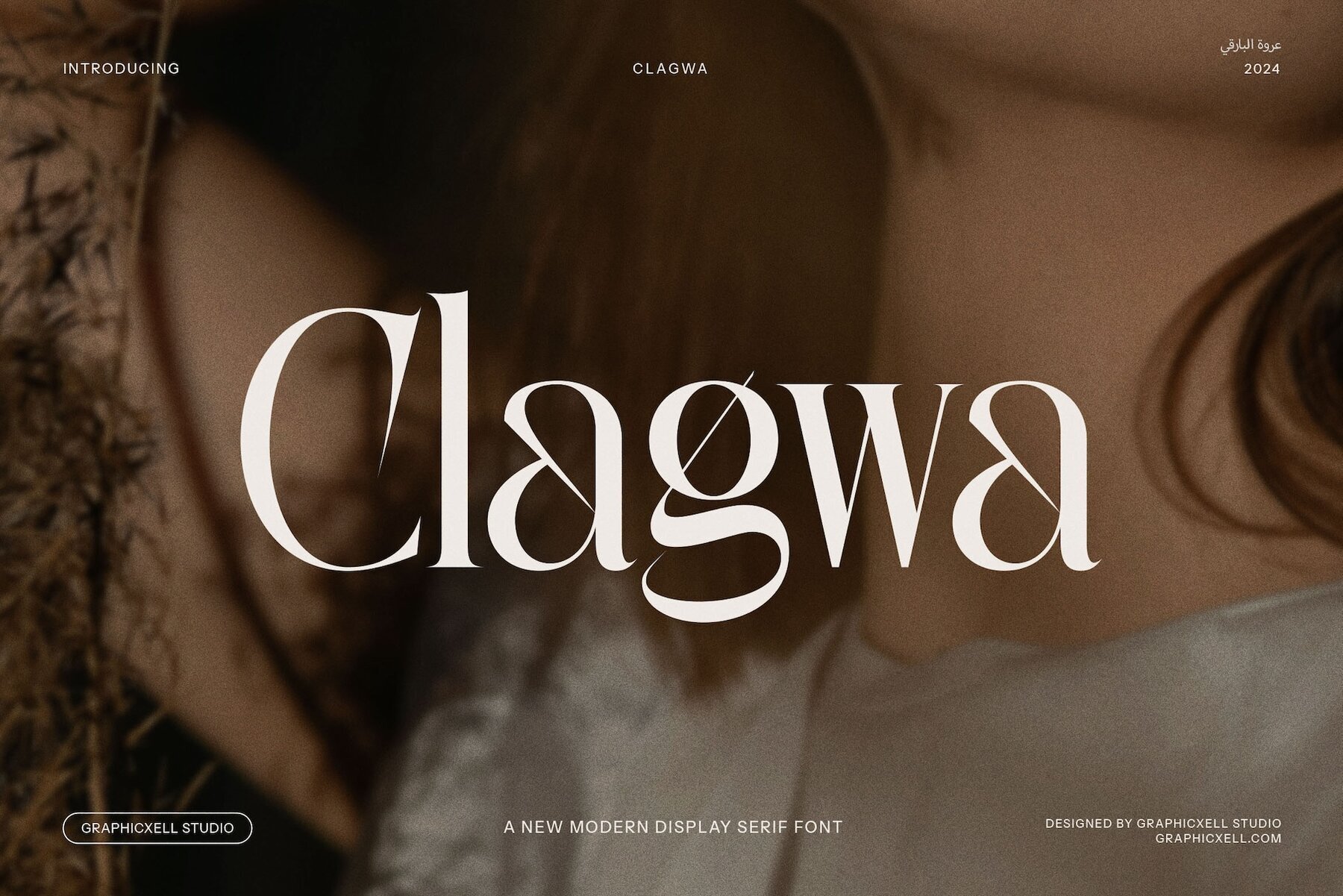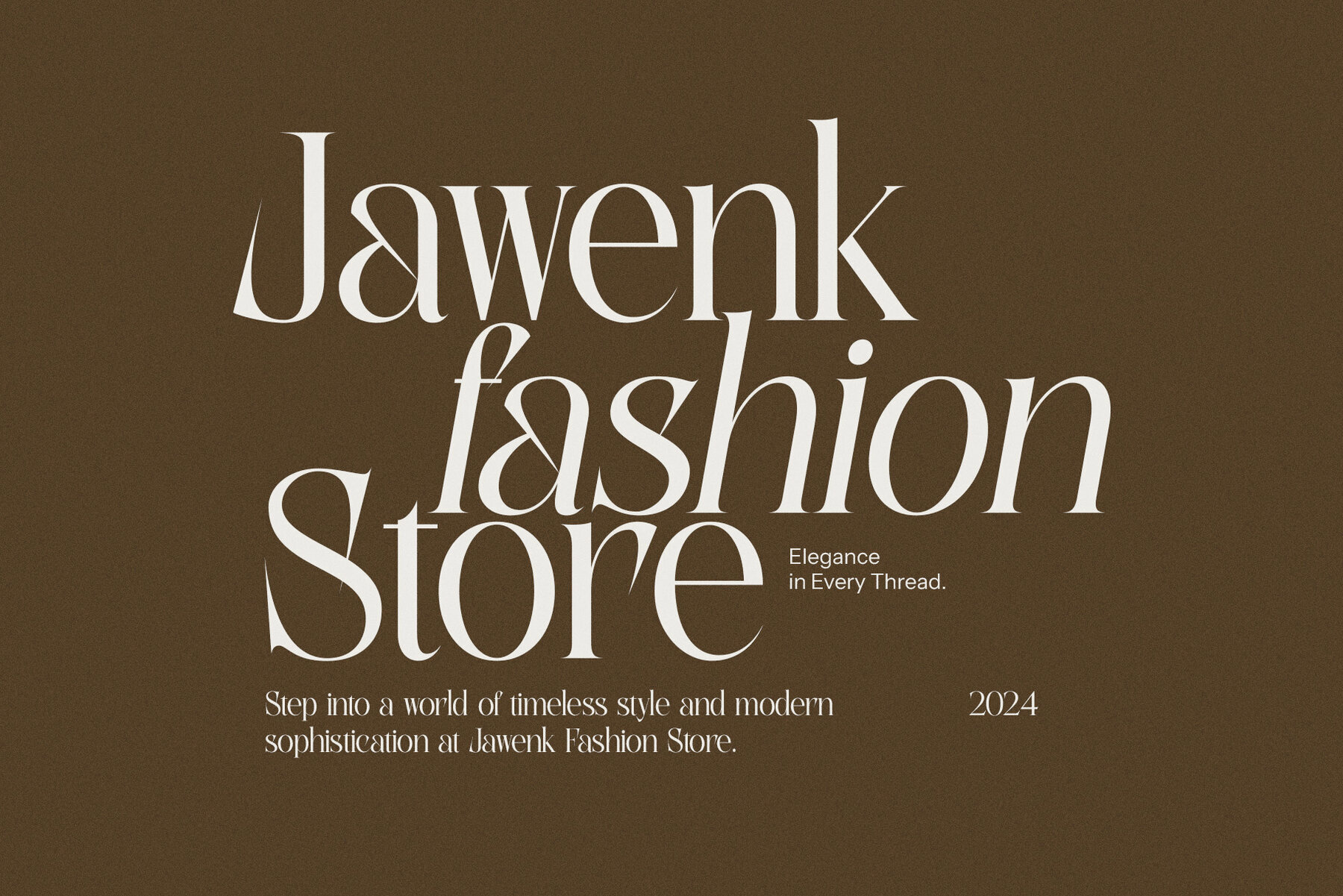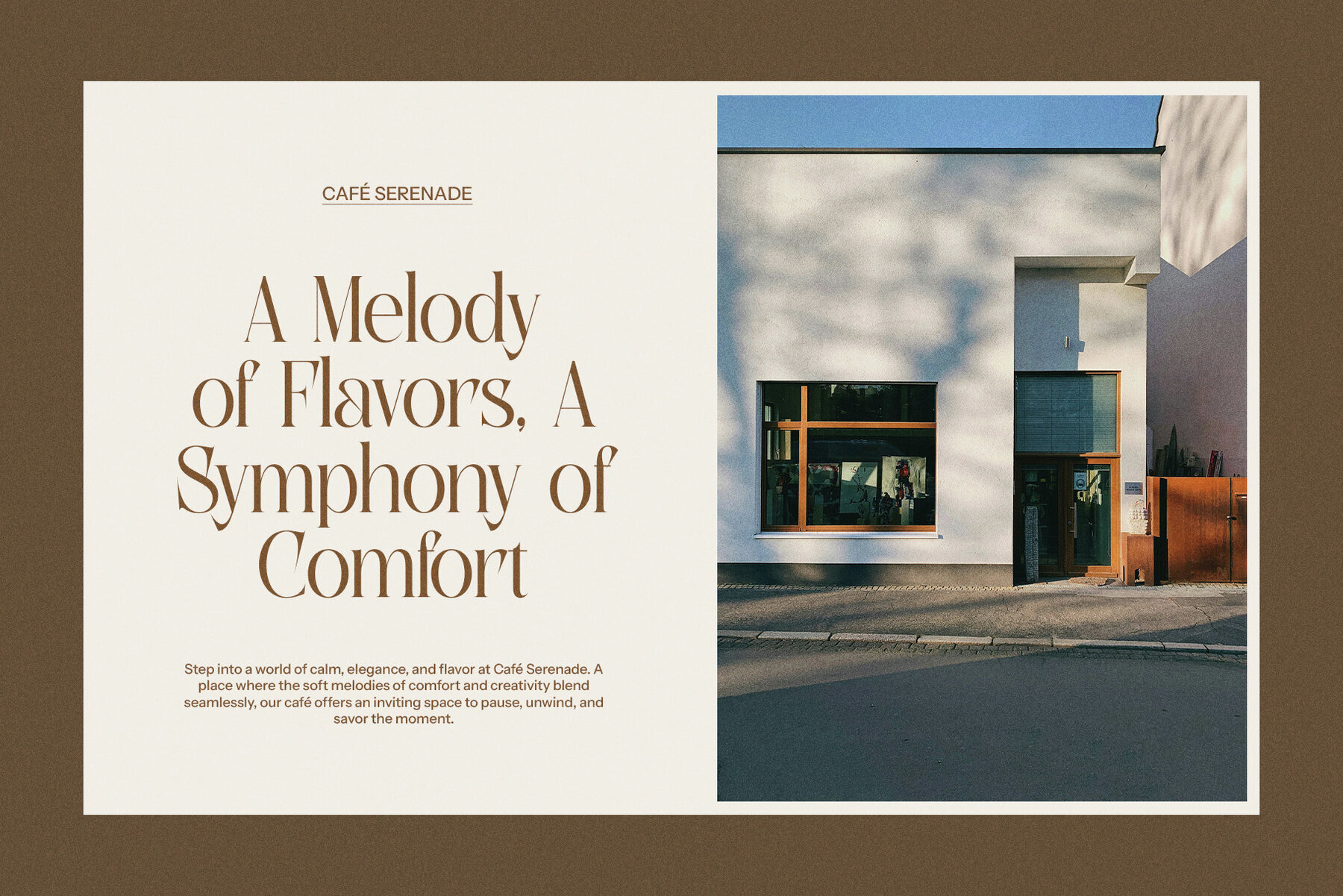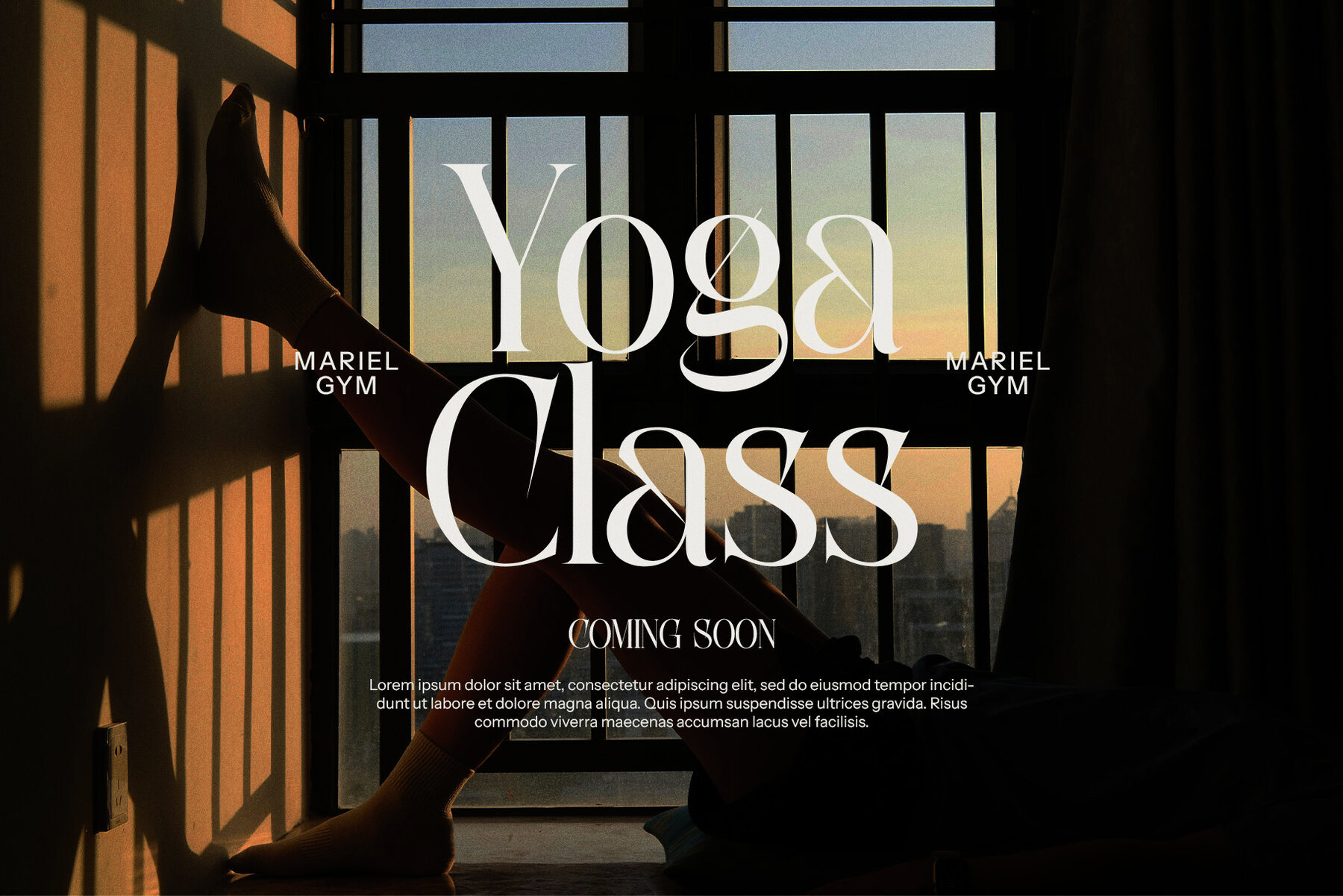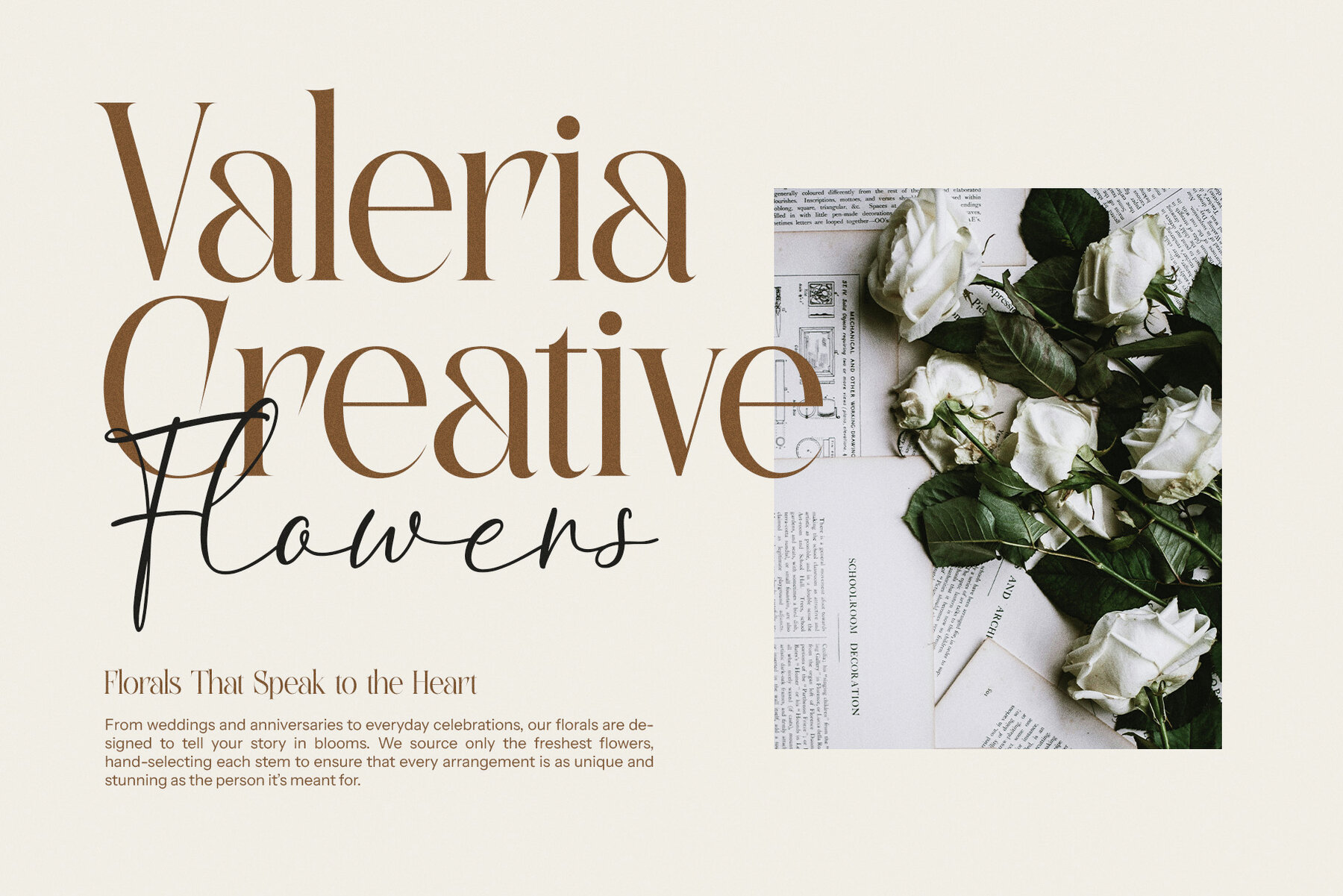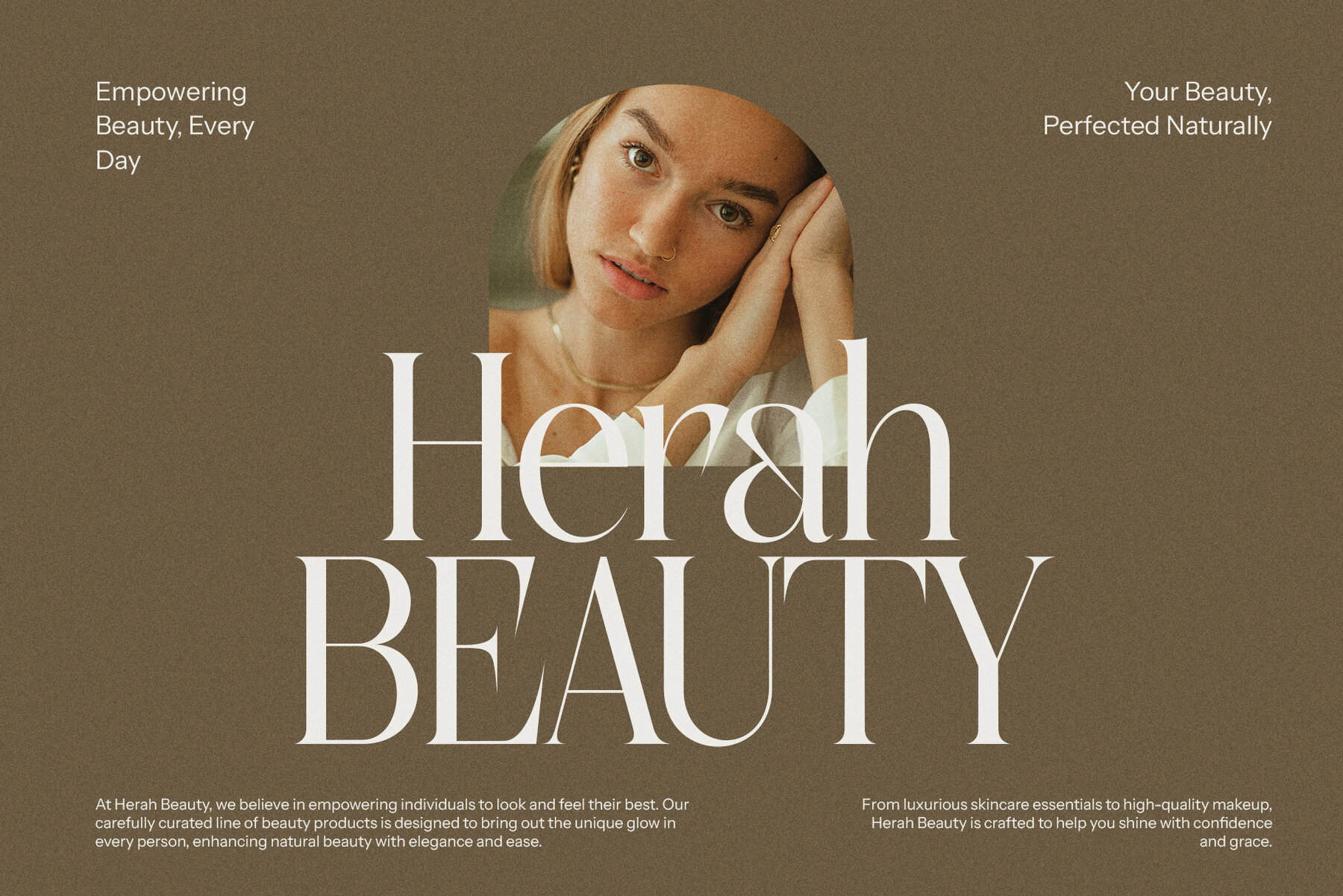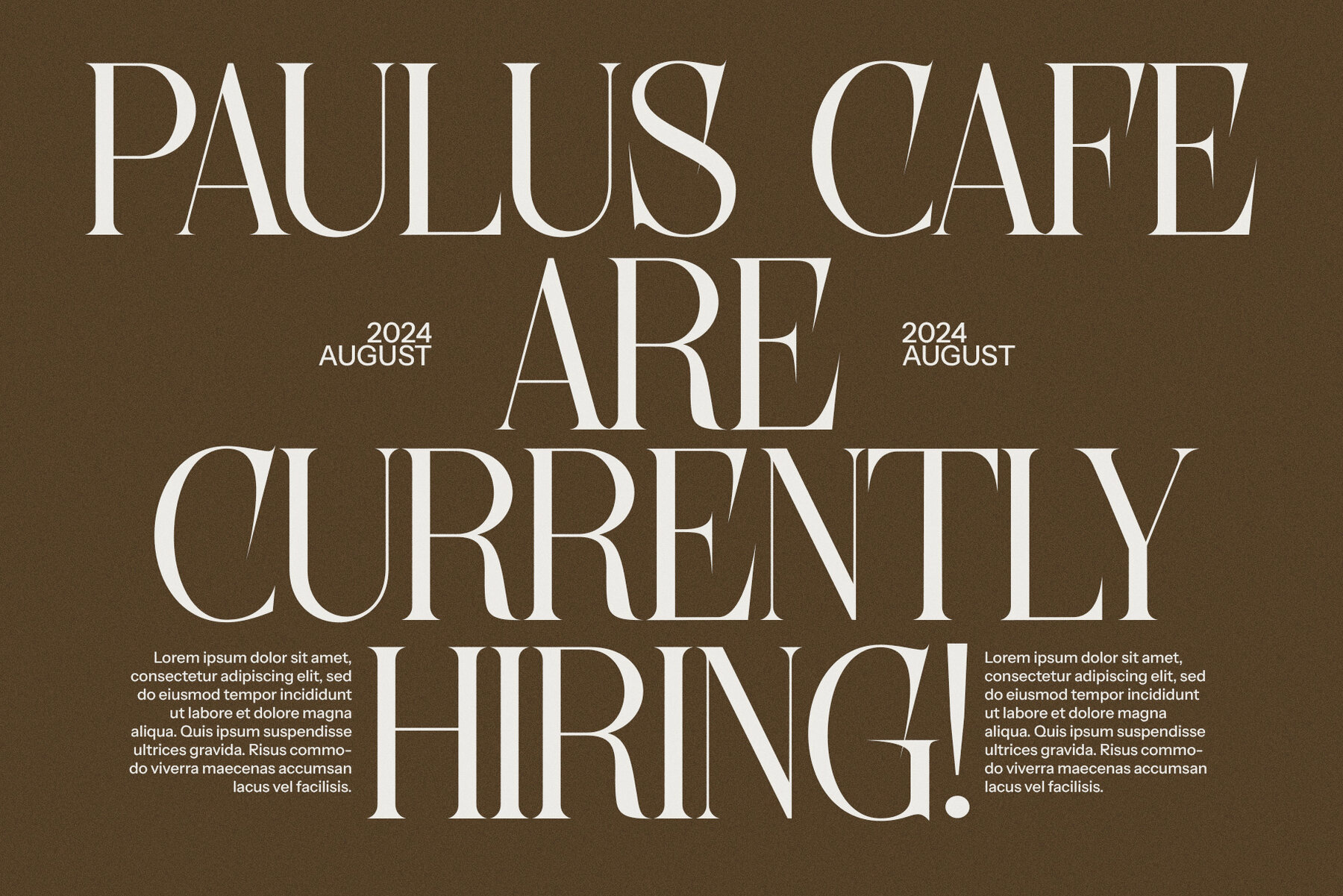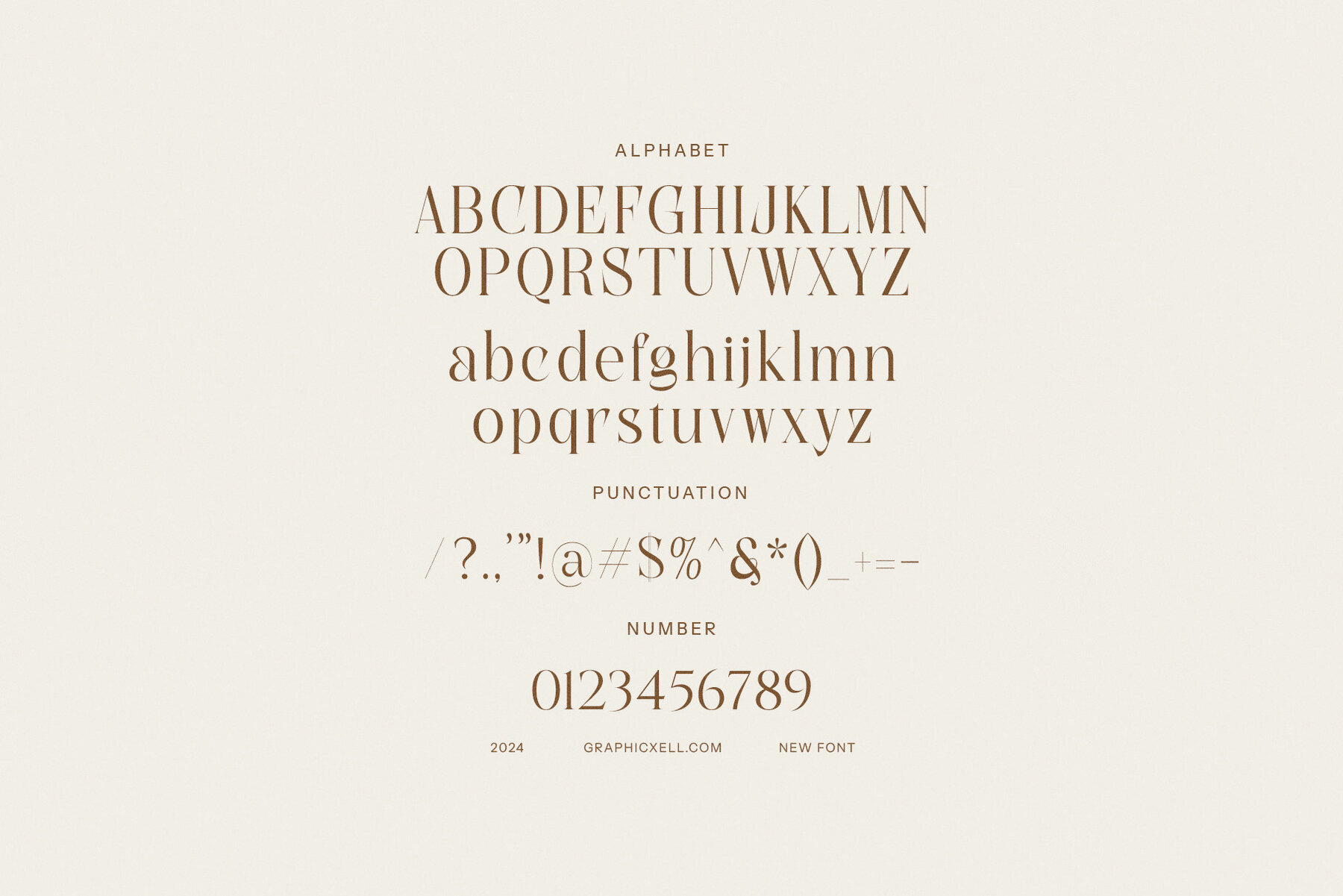
Clagwa Font
Clagwa
Introducing the Clagwa Elegant Display Serif Font, a typeface that blends modern design with vintage elegance. This font features bold serifs and sleek curves, offering a distinctive style that stands out in diverse design contexts. Clagwa is ideal for logos, branding, websites, magazines, and advertisements, making it a versatile choice for creative professionals. Its elegance and readability make it perfect for high-end product packaging, boutiques, fashion brands, and luxury labels.
Clagwa's combination of modern proportions and classic serifs exudes prestige, making it suitable for both print and digital media. The font's unique character enhances magazine layouts, advertisement campaigns, and website typography, ensuring that your message is stylishly communicated. Whether in fashion, food branding, or luxury product design, Clagwa adds sophistication that aligns with a desire for quality and elegance. Its versatile and bold presence makes Clagwa the perfect choice for brands and creators aiming to make a memorable impact with timeless beauty and modern appeal.